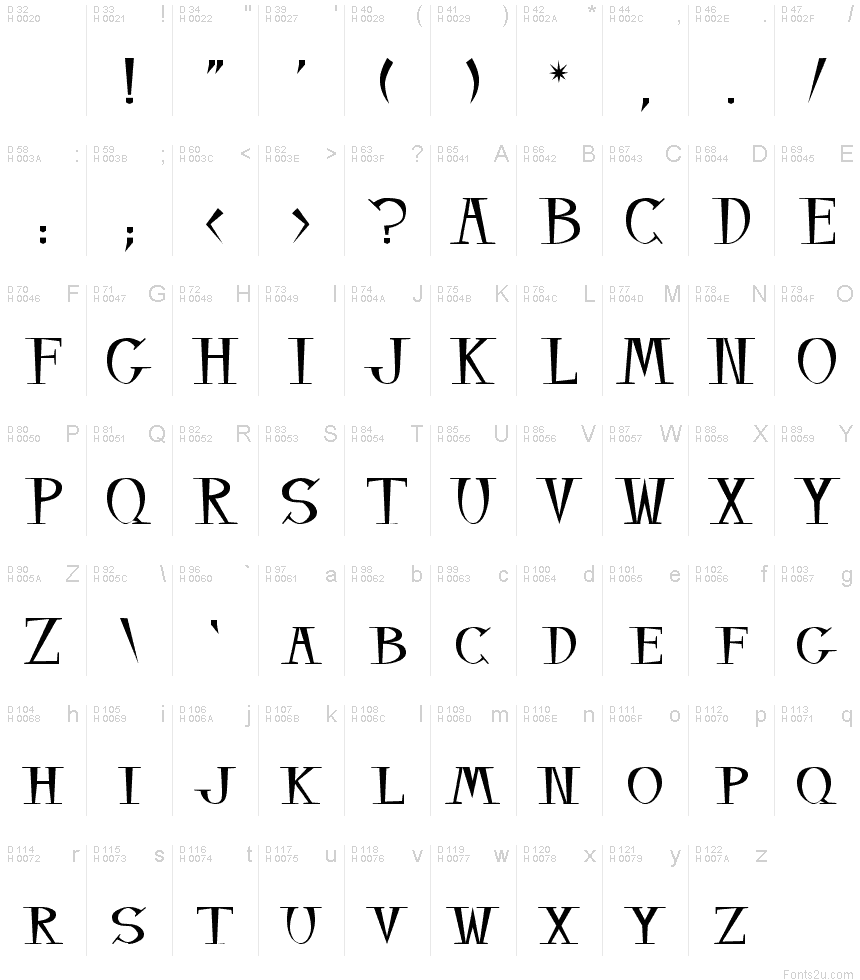
Balsamo
Balsamo font by David F. Nalle - Scriptorium Font Library is a free decorative serif with a carved, old-world feel and a strong poster presence. Its tall capitals, sweeping curves, and sharply cut finishing details give titles a ceremonial rhythm that feels dramatic without turning hard to read.
Balsamo works well for book covers, wine labels, restaurant branding, fantasy titles, museum posters, invitations, and boutique packaging. This free font looks best at larger sizes, where its elegant contrast and antique mood can breathe; pair it with a quiet text serif or a plain sans to let the character lead.